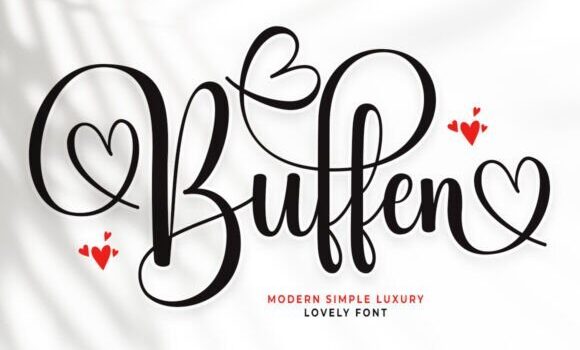
buffen
Buffen Font – Free Download Introduction to Buffen Font Buffen Script is an elegant handwritten font with a stunning modern touch. 📸 Preview Gallery 4 images 📌 Product Name Buffen Font 👤 Author IM Studio 📂 Category Explore ⬇️ Download